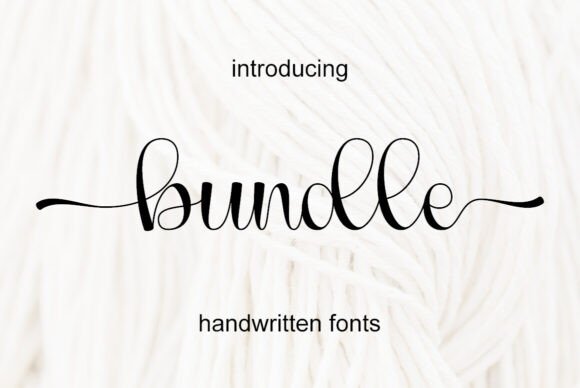
The Elegance of Bundle Font: A Designer’s New Best Friend
I’ll never forget the time I was working on a wedding invitation project, and my client asked for a font that was “elegant, yet playful.” I scoured the internet, tried out dozens of fonts, but nothing seemed quite right. That was until I stumbled upon Bundle Font. Its flowing, graceful curves instantly caught my eye, and I knew I had found the perfect fit. In this article, I’ll share my experience with Bundle Font, its features, and how to make the most of it in your designs.
An Honest Review of Bundle Font
• ✨ Elegant and charming: Bundle Font exudes sophistication and style, making it perfect for high-end designs.
• ✅ Versatile: From invitations to logos and branding, this font can be used in a variety of projects.
• 💫 Delicate strokes: The font’s gentle curves bring warmth and creativity to any design.
While Bundle Font is an excellent choice, it’s not without its limitations. For instance:
• ⚠️ It may not be the best choice for body text, as its elegant curves can be difficult to read in large blocks.
• 🤔 Some users may find the font’s script style too ornate for certain projects.
The Story Behind Bundle Font
Bundle Font was designed with the intention of creating a font that exudes elegance and charm. The designer, inspired by classic calligraphy, aimed to create a font that would bring a touch of sophistication to any design. With its delicate strokes and flowing curves, Bundle Font is the perfect choice for designers looking to add a personal and stylish touch to their projects.
Q: What type of projects is Bundle Font best suited for?
A: Bundle Font is perfect for designs that require an elegant and charming touch, such as invitations, logos, and branding.
Q: Can I use Bundle Font for body text?
A: While possible, Bundle Font may not be the best choice for body text due to its script style and elegant curves, which can be difficult to read in large blocks.
Q: Does Bundle Font support OpenType features?
A: Yes, Bundle Font supports OpenType features, including glyphs and stylistic alternates, which can be accessed in compatible design software.